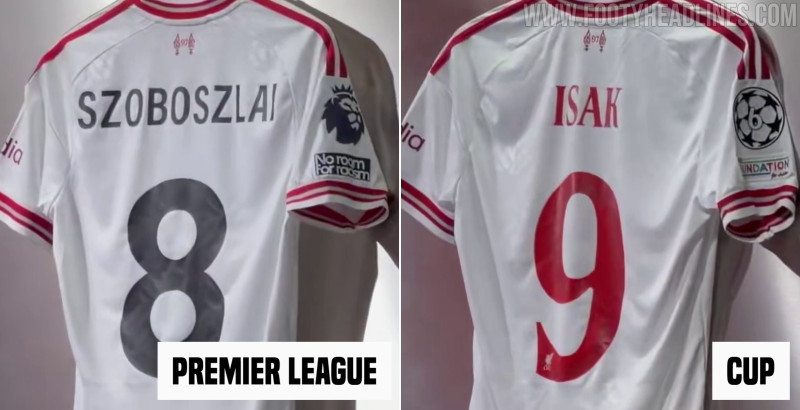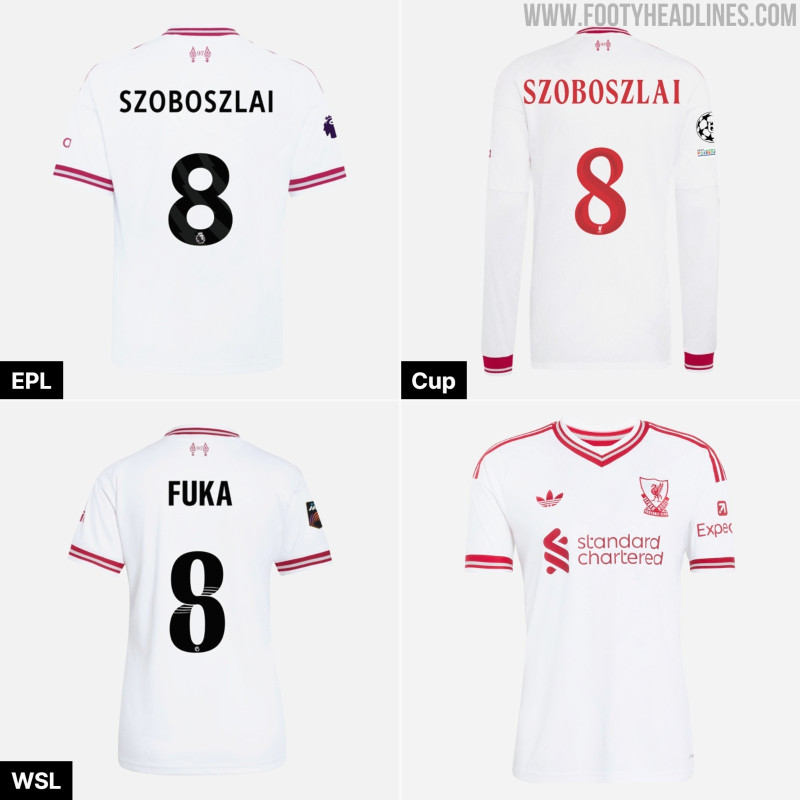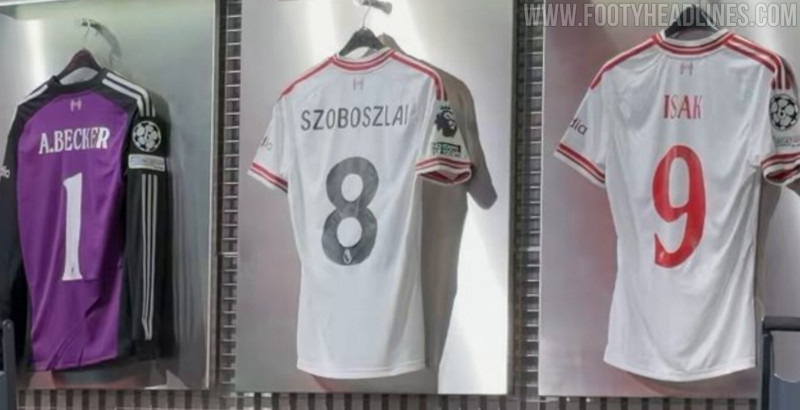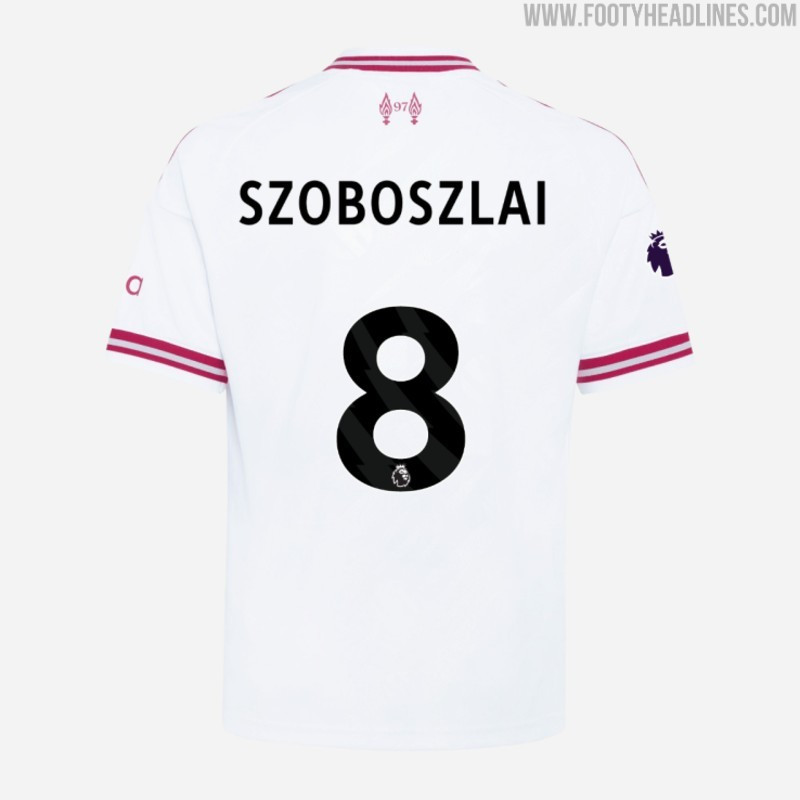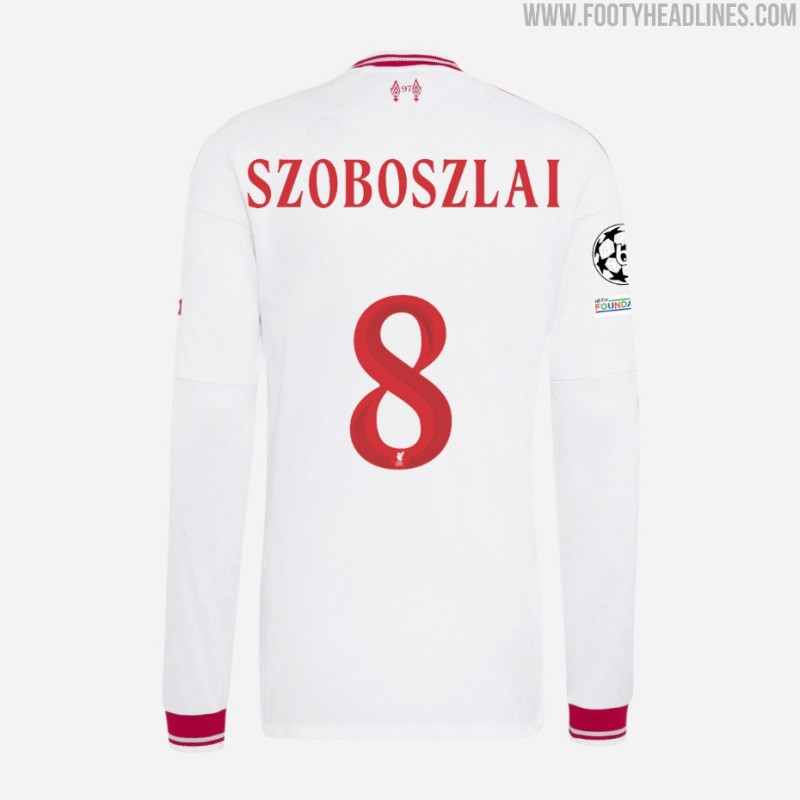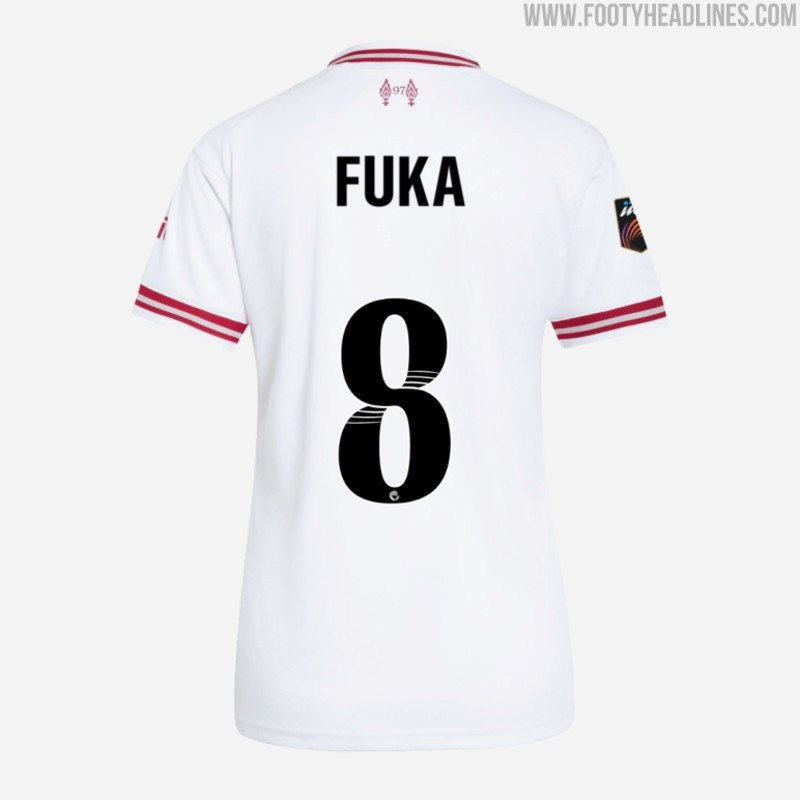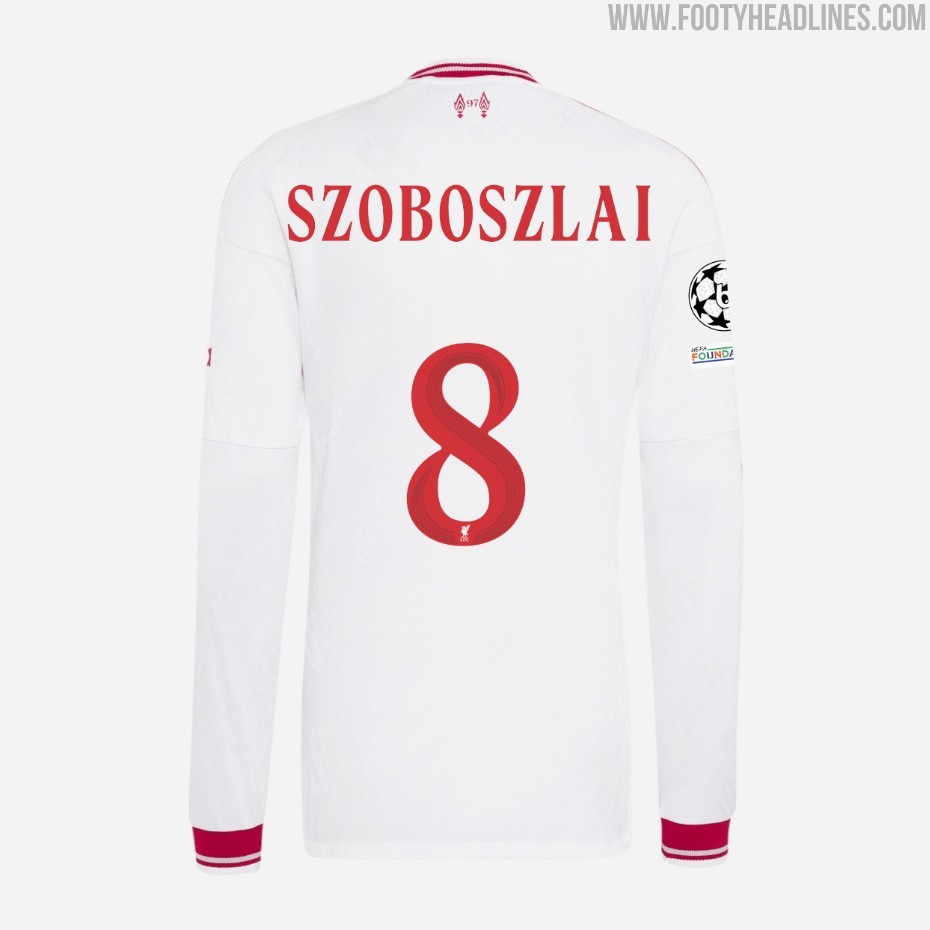
Liverpool 26-27 Away Kit Features Black Premier League Font
- Kit Design and Branding: Liverpool's 26-27 away kit, crafted by Adidas, is retro-inspired with an off-white base, red accents, the classic Trefoil logo, and a heritage 1980s Liver Bird crest.
- Premier League Font Choice: For Premier League matches, the 26-27 away kit will feature black lettering and numbering on the back, a surprising choice attributed to a potential shade mismatch with the streamlined red EPL font.
- Cup Match Font Details: In cup matches, Liverpool will use a new red cup font that matches the kit, although it oddly includes the regular Liverbird logo with LFC lettering instead of the kit's classic crest.
Liverpool has officially launched its retro-inspired 26-27 away kit, crafted by Adidas and featuring the classic Trefoil logo alongside a heritage 1980s Liver Bird crest. The choice of colors for the font surprised many - thanks to ++Jay Pearson++ from Tops of the Kop for the spot.
Liverpool 26-27 Away Kit Font
The Liverpool 26-27 away shirt design displays an off-white base highlighted by bold red accents across the collar, shoulder stripes, and sleeve cuffs. There are only these two colors, plus gray for detailing. However, the kit will have a fourth color on the pitch in league matches.
For Premier League matches, the Liverpool 2026-2027 away kit features black lettering and numbering on the back, and not the red one available as one of the 5 presets. This is probably because the streamlined red EPL font has a different shade of red than the kit. The WSL version also sees a black font.
In cup matches, Liverpool will use their new cup font, in a matching red. Oddly, the font comes with the regular Liverbird logo with LFC lettering, even though the kit has a classic one.